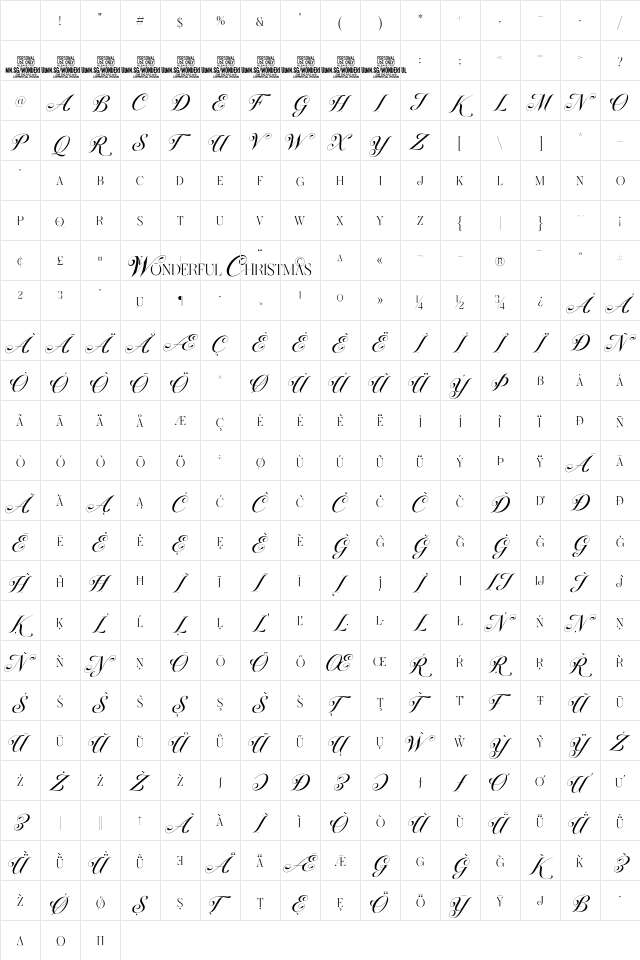
Complete Wonderful Christmas PERSONAL Regular glyph index. Displaying only characters natively supported by Wonderful Christmas PERSONAL Regular font.
Wonderful Christmas PERSONAL is a composed and adaptable typeface that performs quietly and consistently across a wide range of design contexts.